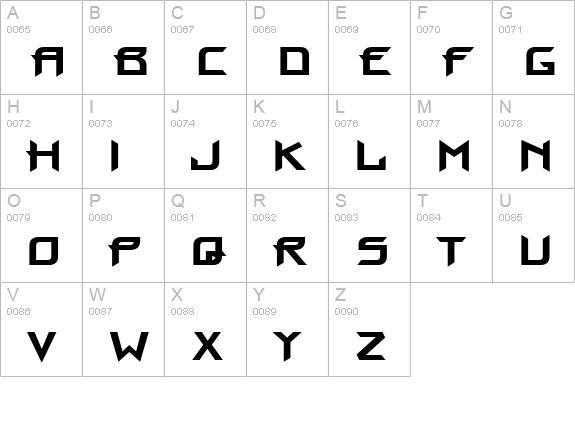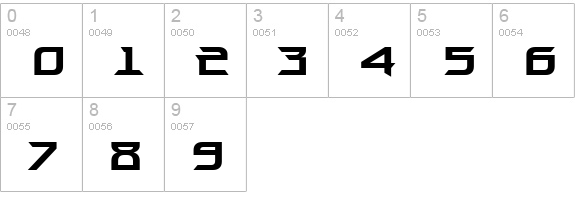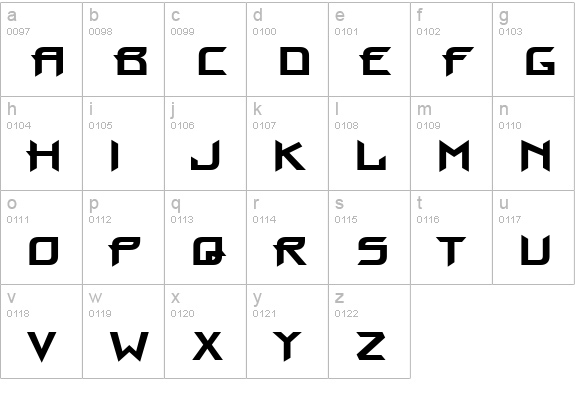
Proun Bold is a strong, high-contrast variant in the Proun typeface family \xE2\x80\x94 well suited to headlines, attention-grabbing titles, and strong calls-to-action.
Proun Bold is a modern and sleek typeface that exudes confidence and sophistication. With its bold and striking appearance, this font is perfect for making a statement in your designs. Its sharp lines and unique letterforms give it a contemporary edge that will surely captivate your audience. Best of all, Proun Bold is available for free download at FontsMarket.com. This means you can easily add this stylish font to your collection without any cost. Whether you're working on a branding project, poster design, or any other creative endeavor, Proun Bold is sure to elevate your work with its bold and impactful presence. Download Proun Bold today and take your designs to the next level!